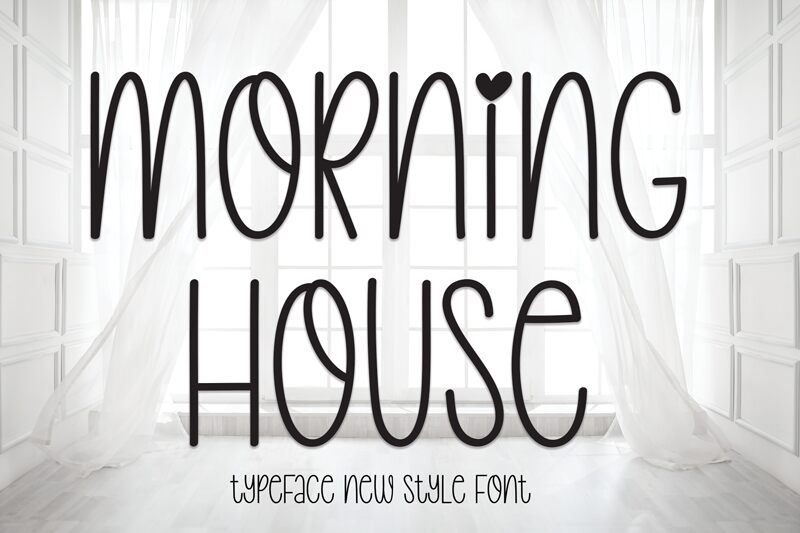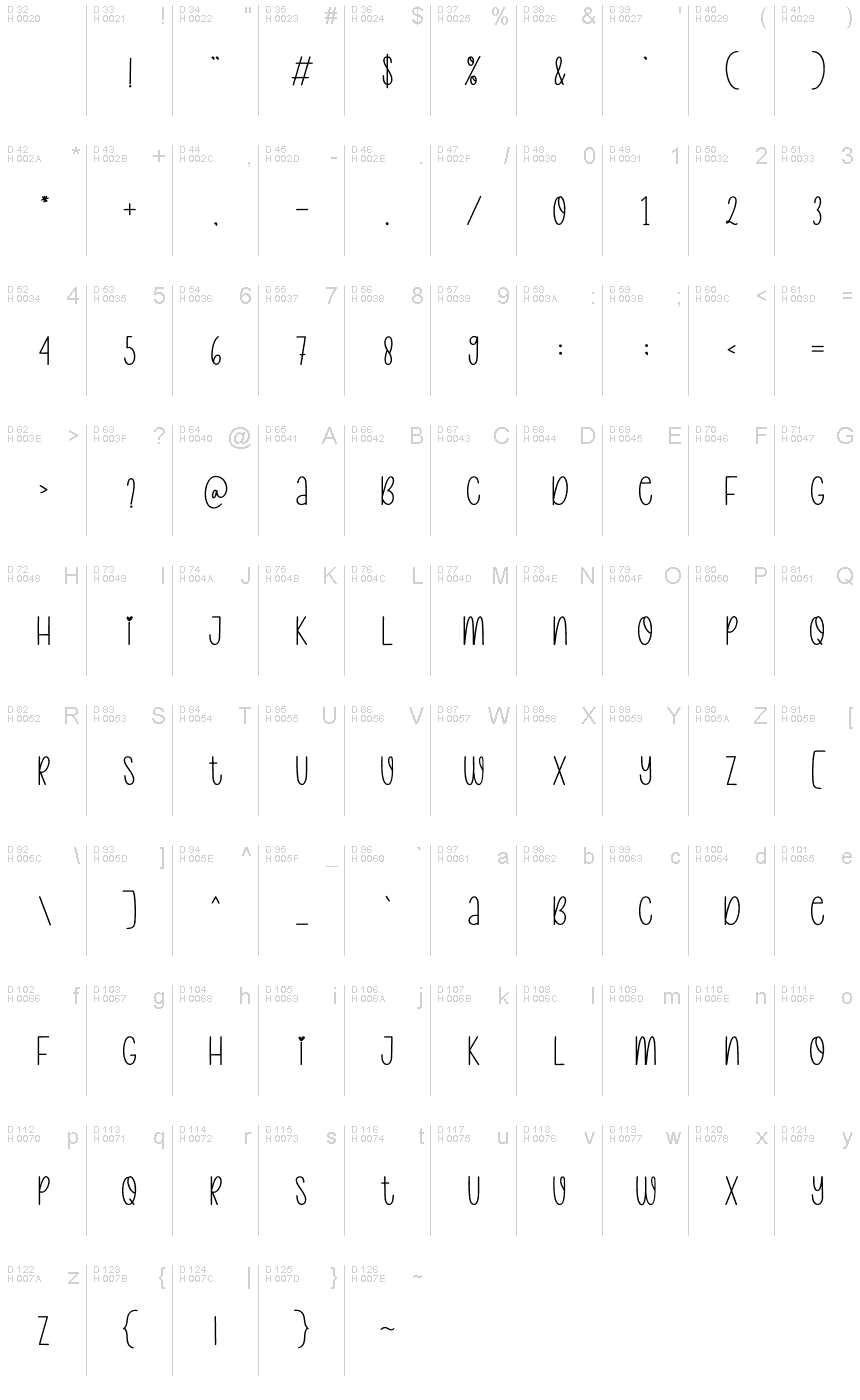
Morning House
Morning House emerges as a charming handwritten font meticulously crafted by Scratchones. With its semi-light weight and condensed width, it exudes an intimate and personal touch that mimics the nuances of actual handwriting. The gentle curves and subtle variation in stroke thickness lend Morning House an organic, approachable feel that's both refreshing and familiar.
This font's aesthetic appeal lies in its elegant simplicity, making it versatile enough to enhance a variety of creative projects. Whether it's used for wedding invitations, branding materials, or casual blog headers, Morning House offers a delightful blend of sophistication with a dash of whimsy.
Its legibility and distinct character make Morning House particularly suitable for designs seeking to convey authenticity and warmth. The font invites audiences into a space that feels cozy and bespoke-perfect for those looking to add a handcrafted essence to their digital or print endeavors.